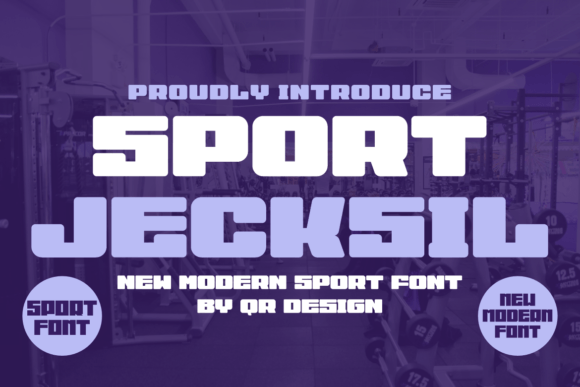
Looking for a bold and authentic display font that will give your branding project that extra edge? Look no further than Sport Jecksil Font! This sans serif font, created by the talented designers at qrdesignstd, is sure to catch the eye and make your project stand out from the crowd.
Sport Jecksil Font is perfect for a wide range of branding projects, including logos, t-shirt printing, sports-themed designs, and much more. Its bold, striking lines and clean, modern style make it an ideal choice for any project where you want to make a strong visual impact.
One of the great things about Sport Jecksil Font is its versatility. It looks great on its own or paired with other fonts, making it a fantastic choice for creating eye-catching designs that will really grab your audience's attention.
- Authenticity: Sport Jecksil Font has a unique and authentic style that sets it apart from other display fonts on the market. It's perfect for creating designs that feel genuine and original.
- Boldness: If you want your branding to make a statement, Sport Jecksil Font is the way to go. Its bold lines and strong presence will ensure that your message is heard loud and clear.
- Versatility: As mentioned earlier, Sport Jecksil Font is a versatile font that can be used in a variety of contexts. Whether you're designing a logo, creating a t-shirt, or putting together a sports-themed project, this font has you covered.
Overall, Sport Jecksil Font is a fantastic choice for anyone looking to elevate their branding to the next level. Its bold, authentic style, versatility, and eye-catching presence make it a must-have for any designer's toolkit.